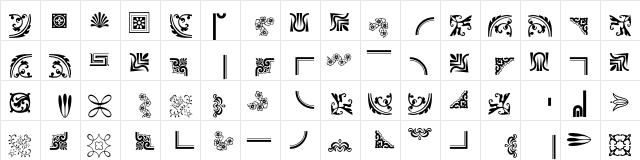
Borders Ornaments P05 Regular
Borders Ornaments P05 brings ornamental detail and strong personality to headlines and identities, where visual impact matters more than quiet functionality.
Font Pairing: Pair with a clean neutral sans-serif for body copy to let Borders Ornaments P05's character lead without overwhelming the composition.
Pro Tip: Use Borders Ornaments P05 exclusively at display sizes — it was designed to be seen, not read at length. Let a neutral companion handle body copy.